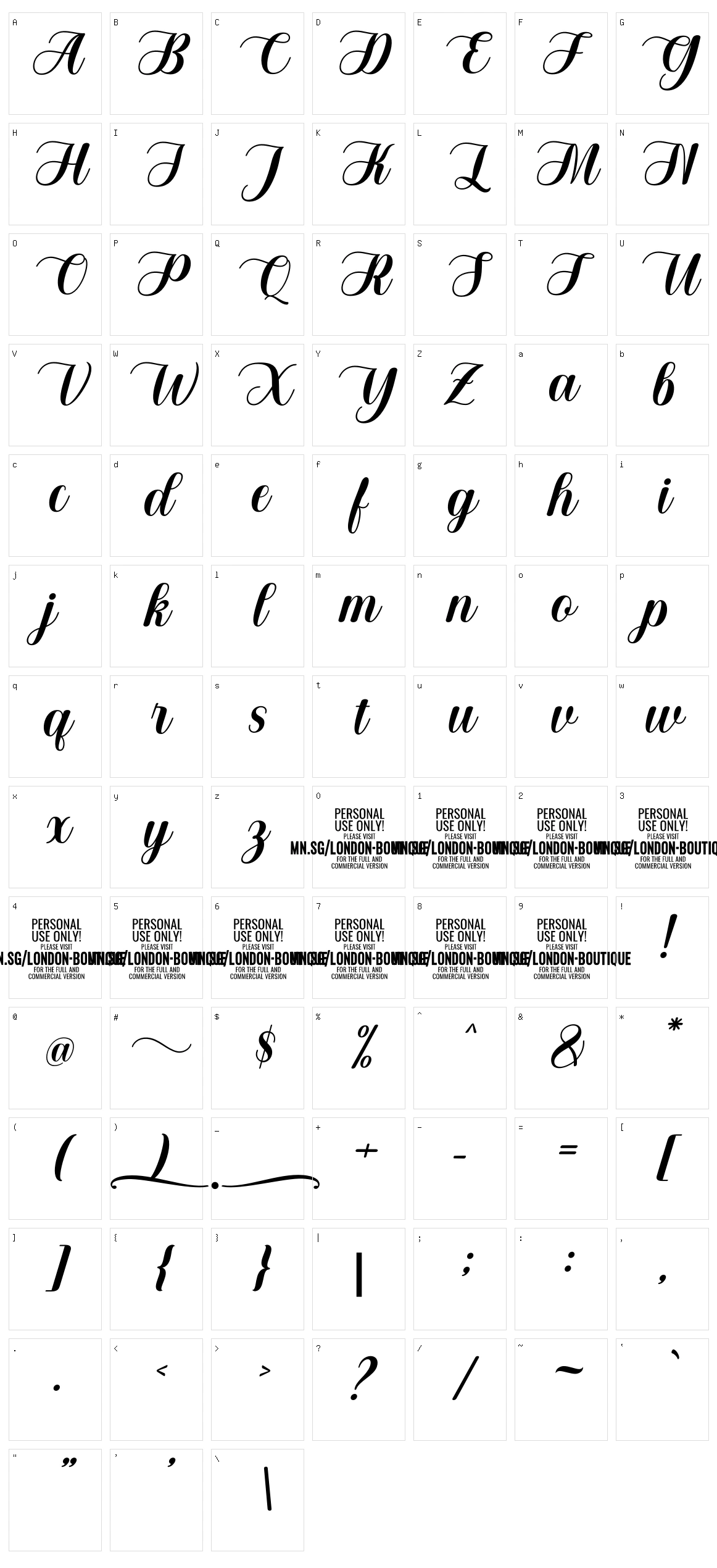
London Boutique is a bold and cute script font that combines rustic charm and fine art elegance. Its cursive strokes and handwriting style give it a personalized touch that is perfect for adding a decorative flair to your designs.
Designed with a focus on independent shop usage, London Boutique features fine swashes that add a touch of sophistication to any project. Whether you're creating logos, branding, or social media posts, this font is versatile enough to handle it all.
London Boutique comes in four styles: Regular, Italic, Bold, and Bold Italic. This range of styles provides flexibility and allows for dynamic and creative designs.
Use underscore _ anywhere in a word to make a swash.
Example: Luxure_Shops
Use multiple underscores to make different swashes.
Example: Angel___Stars
Use # before or after any letter to make an initial or finishing swash.
Example: #loveletter#
The font is built with advanced OpenType functionality and has a guaranteed top-notch quality, containing stylistic and contextual alternates, ligatures and more features; all to give you full control and customizability.
It has extensive lingual support, covering all Latin-based languages, from Northern Europe to South Africa, from America to South-East Asia.
It contains all characters and symbols you'll ever need, including all punctuation and numbers.